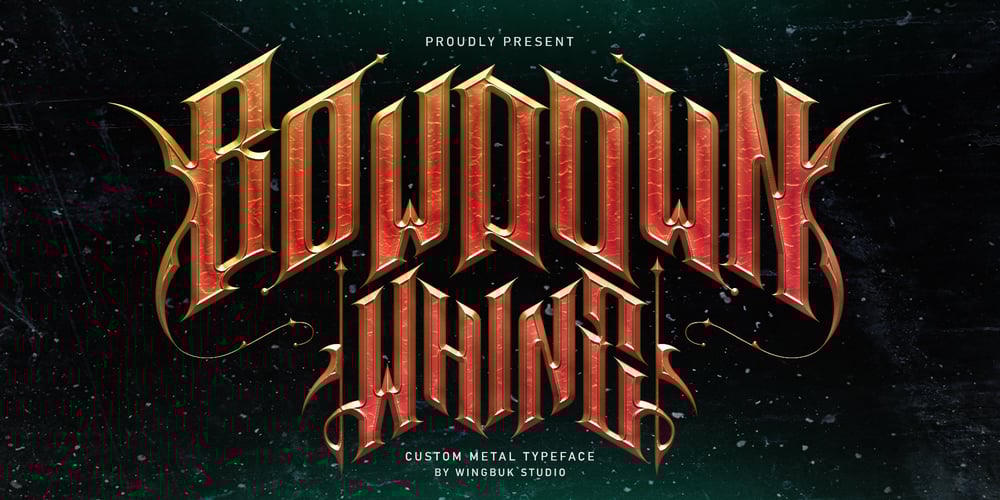
Bowdown Metal
Bowdown Metal font
Bowdown Metal Font Family was designed by Adji Shaka and published by WingBuk Studio. Bowdown Metal contains 1 styles and family package options. Unleash the Power of “Bowdown Whine”, Your Ultimate Custom Metal Font.Step into the realm of unparalleled creativity with this Bowdown Whine, the custom metal font meticulously crafted by a true connoisseur of the genre. Designed to dominate and captivate, is more than just a font, it’s a bold statement, a raw expression of power, and a homage to the fierce spirit of metal universe.With Bowdown Whine, your designs will no longer just be seen, they will be felt. Each project becomes a powerful statement, a testament to the bold and the daring. This is your opportunity to bring an edge, a unique flair that only Bowdown Whine can deliver.Recomended Software to use:- Adobe Photoshop- Adobe Illustrator- Corel DrawTutorial how to use our Metal Font : https://www.youtube.com/playlist?list=PLR6y6hv8N3ogpgN-Ouase7WoSFINoc-Nt